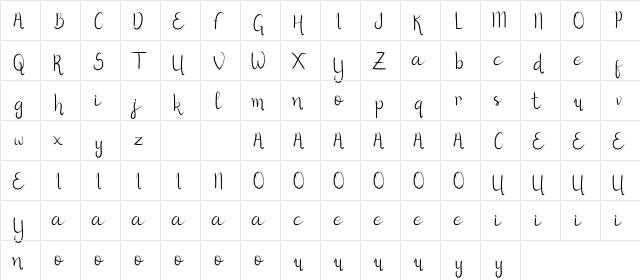
Herist DEMO Regular
| Foundry | edric studio |
| Designer | Aghnia |
Herist DEMO is a composed and adaptable typeface that performs quietly and consistently across a wide range of design contexts.